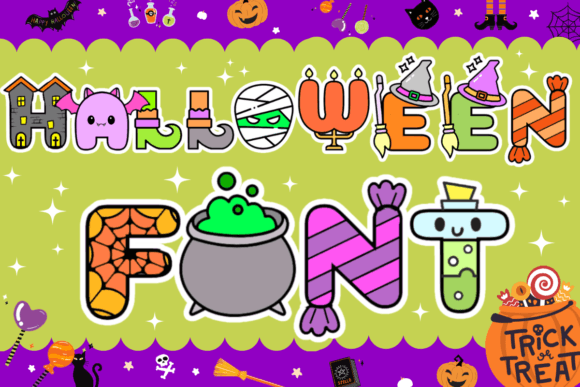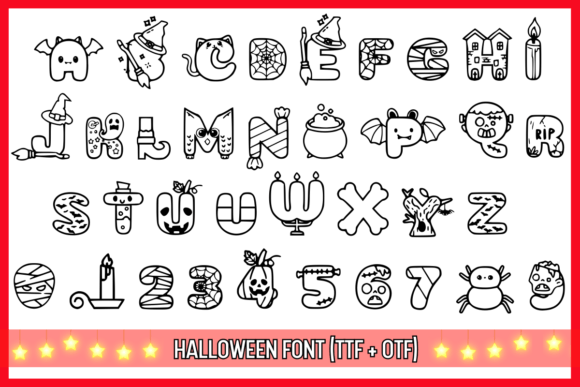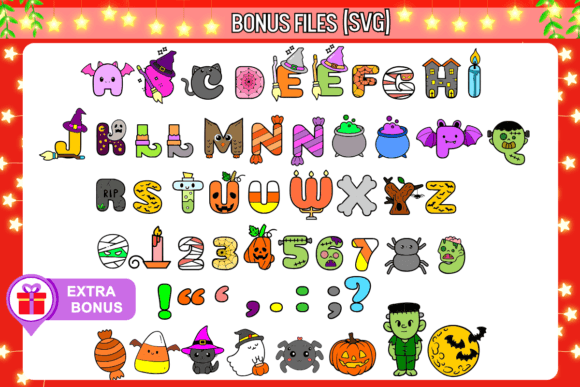
Halloween Font
About the Halloween Font
Step up your design game with Halloween Font, a font that exudes confidence and style. Halloween is a fun decorative font where each letter is dressed up in a different Halloween costume. It’s spooky and playful, perfect for adding a festive touch to your Halloween decorations!
This font excels in headline applications, short phrases on posters, invitations, or packaging for Halloween-themed products. Its playful nature makes it ideal for branding projects targeting a younger demographic or those seeking a fun, festive feel. Avoid using it for body text or long paragraphs; the decorative nature of each letter hinders readability at smaller sizes.
For optimal visual balance, pair Halloween Font with a clean sans-serif like Open Sans for body copy, creating a strong contrast between the playful headline and easily readable text. Alternatively, a classic serif like Garamond could add a touch of sophistication, grounding the whimsical nature of the display font.
The overall personality is undeniably playful and spooky, making it a strong choice for projects requiring a lighthearted, festive, and slightly mischievous tone. It is not suitable for applications demanding elegance, sophistication, or seriousness.
Halloween Font Usage Examples
Halloween Font Example